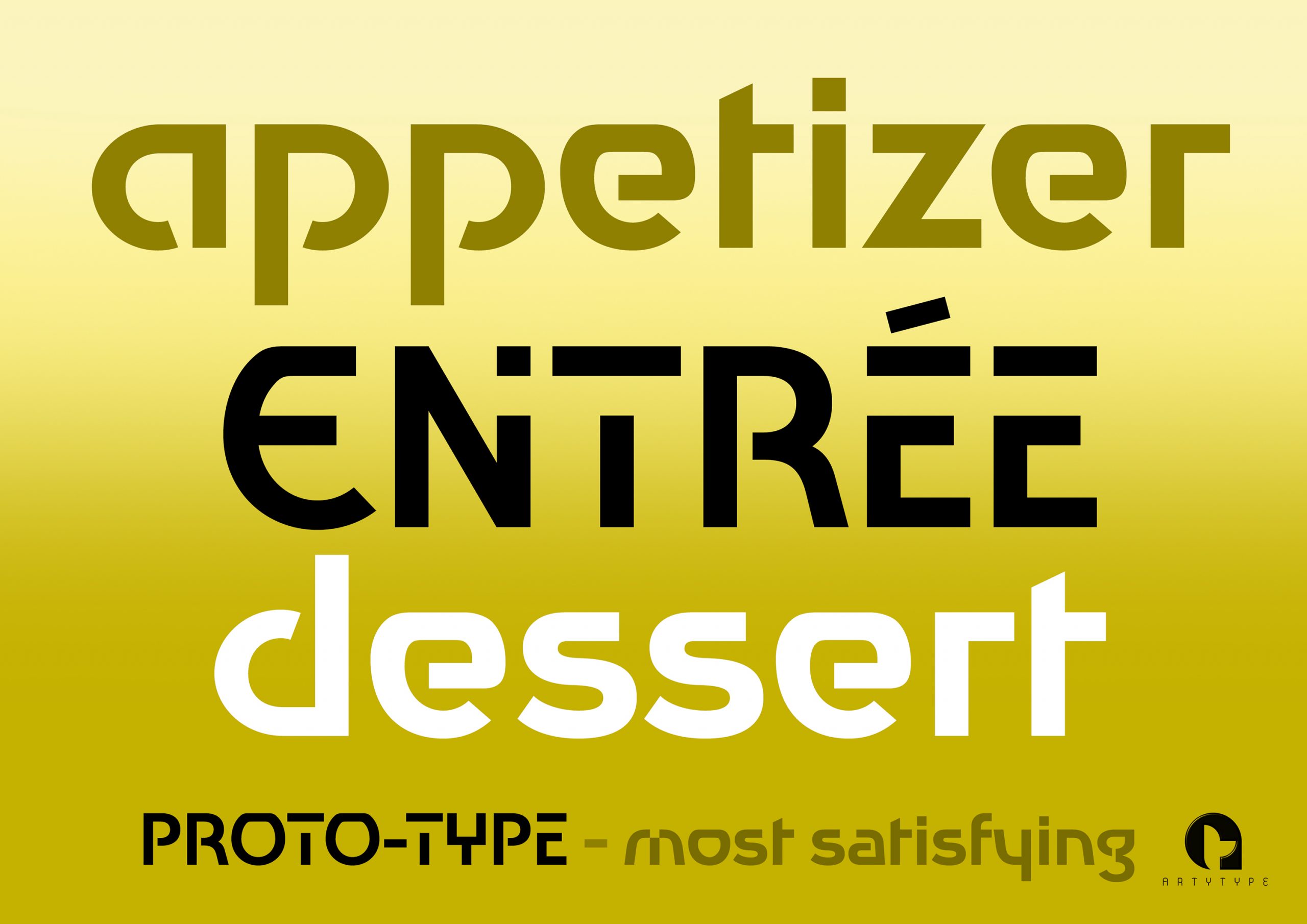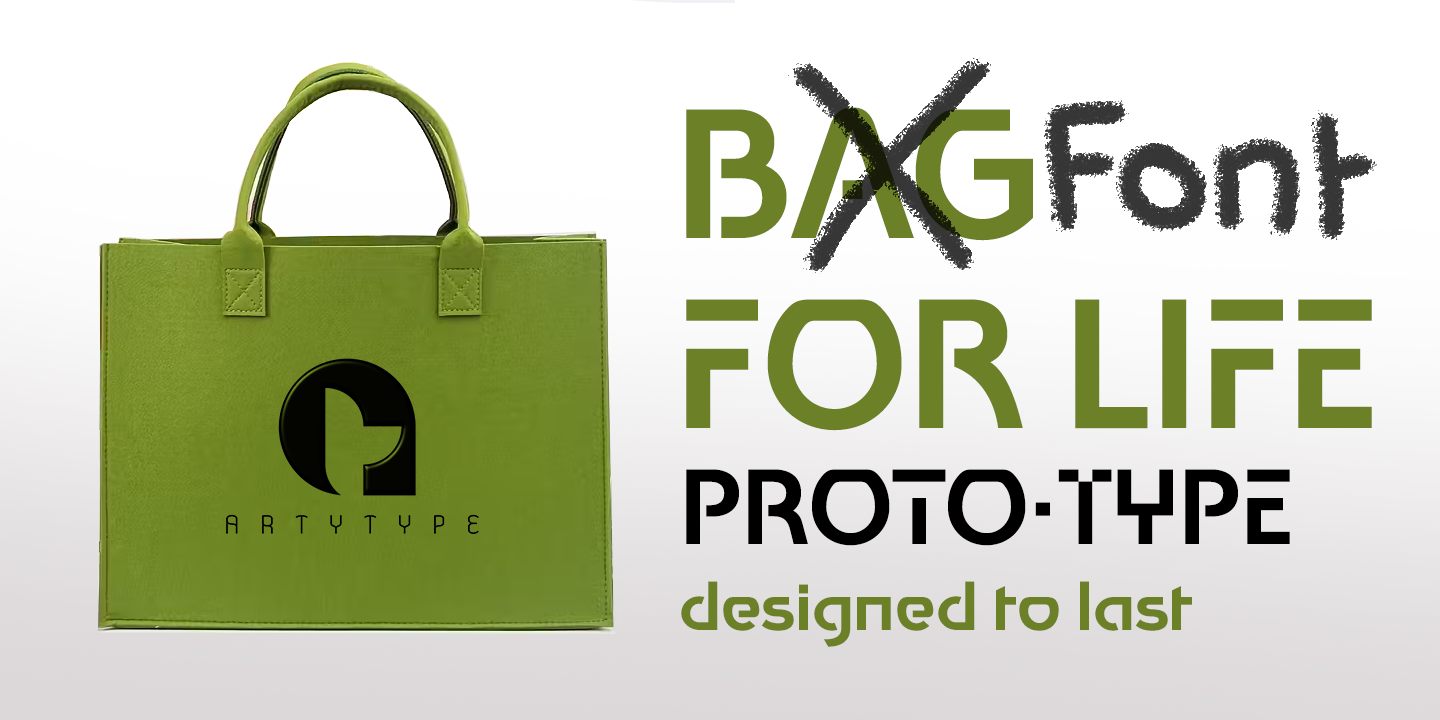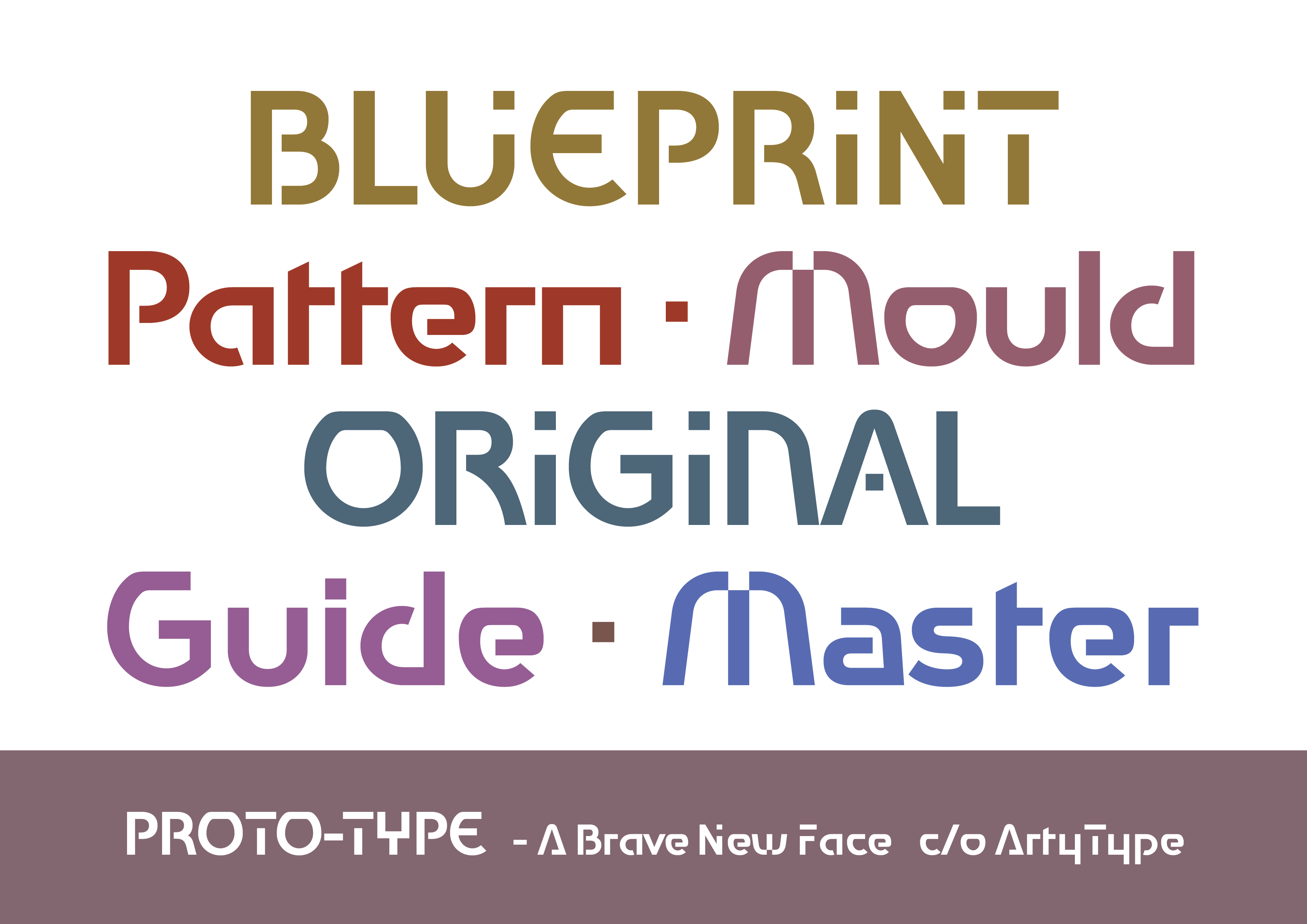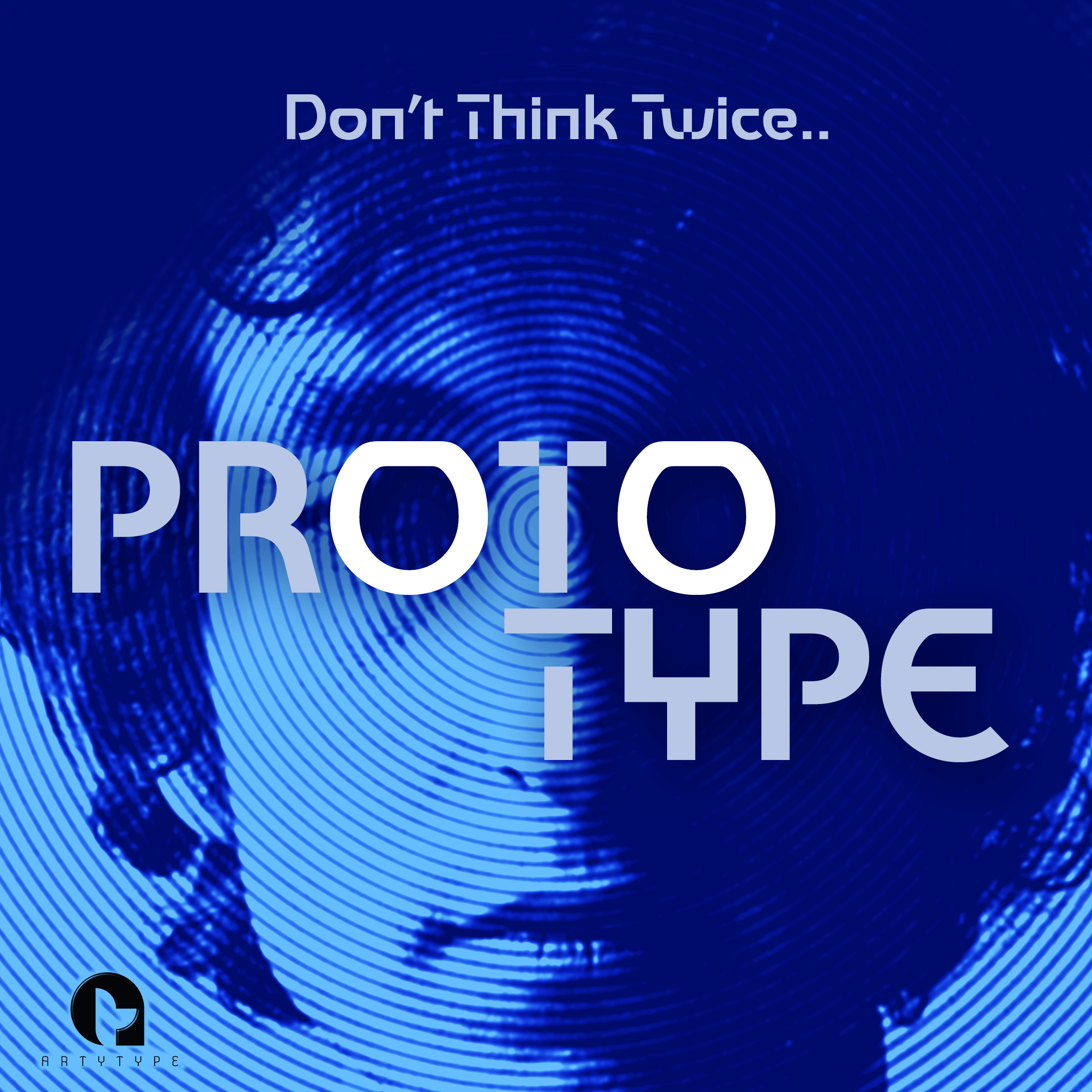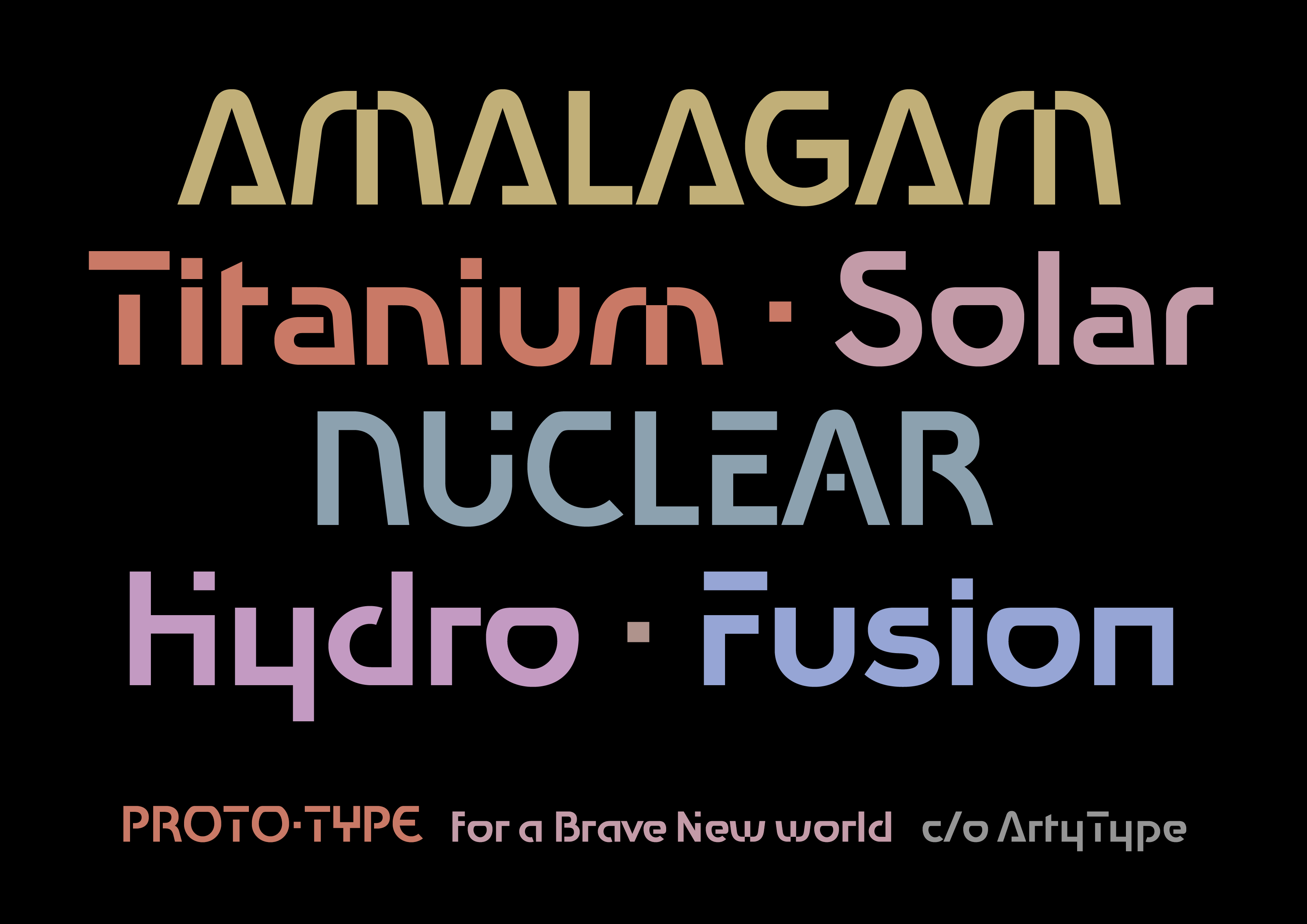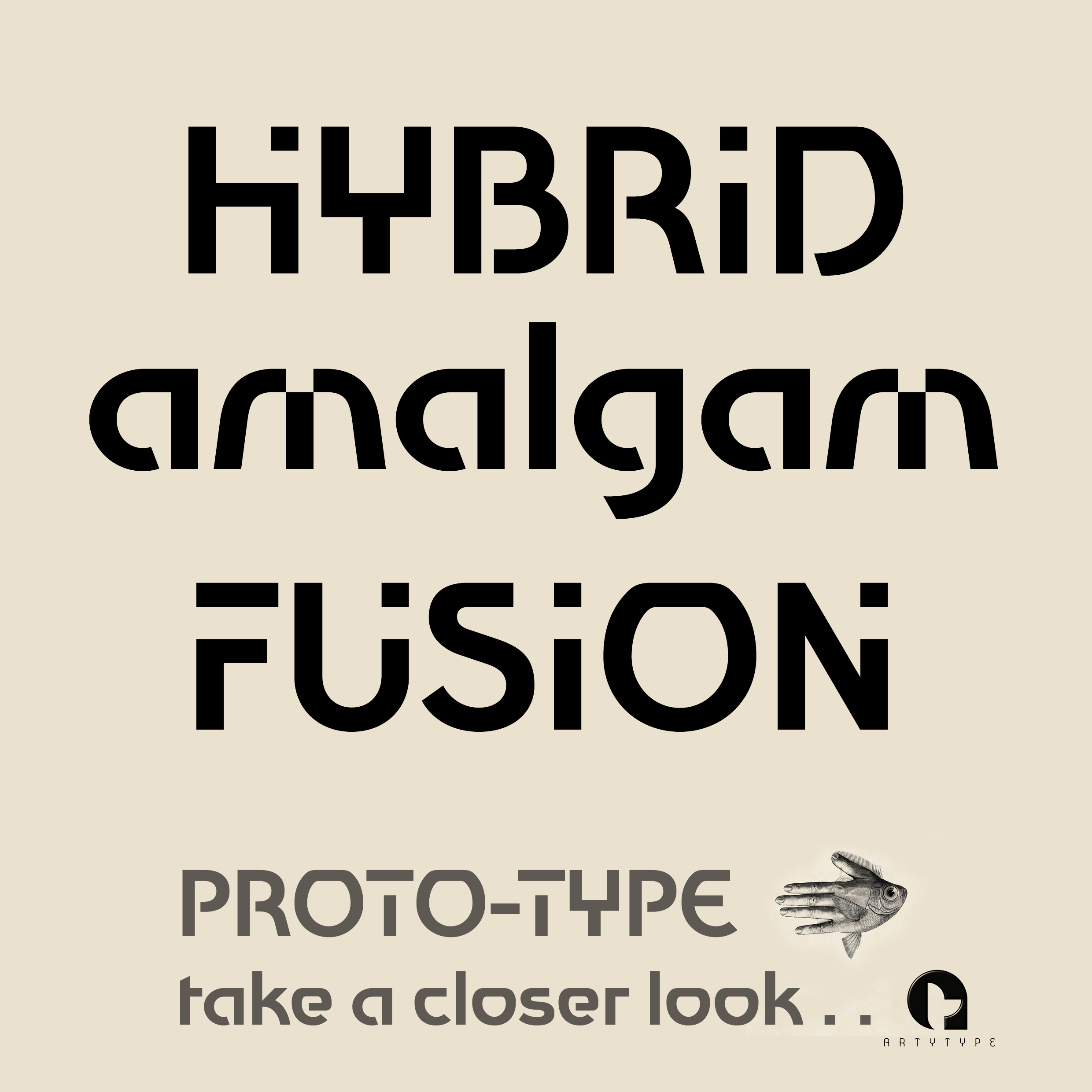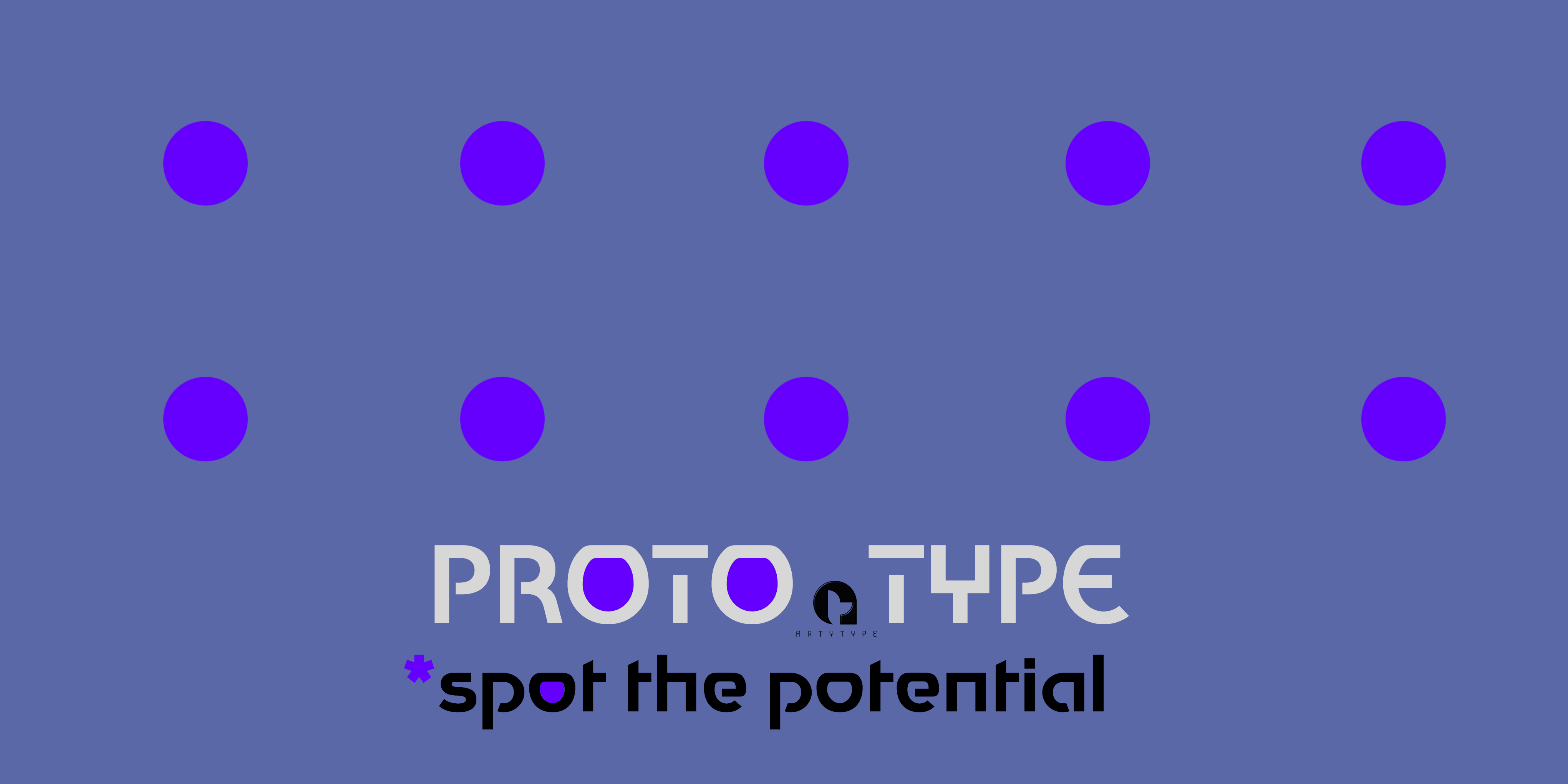
Proto-Type
Proto-Type is a bold, single weight, sans serif typeface flaunting a contemporary vibe, which confidently stands its ground in today’s visually vying marketplace.
In essence, this versatile font offers all-round usage applications. From a design perspective, the styling blends an equal balance of sharp angles & soft curves, effectively managing to morph an amalgam of several stylings into one, while creating many unique characterisations in the process.
Typically, as with other ArtyType fonts, there is a well considered selection of alternate characters, offering deeper design opportunities to any prospective project, some of which can be discovered in the various banners on display here.